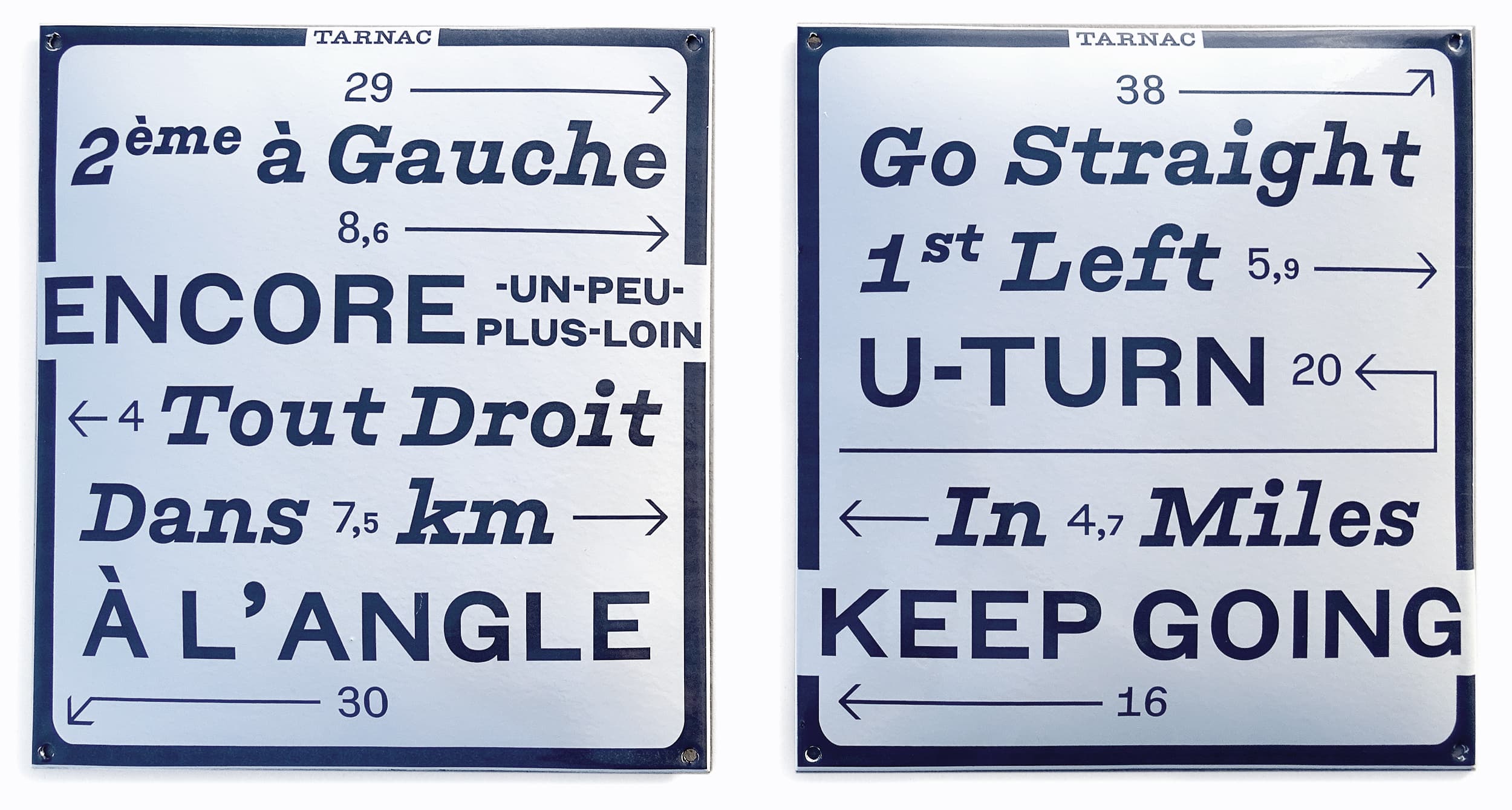
About Tarnac
The roots of Tarnac can be found in a variety of 20th century French Egyptian models, both formal and informal–as featured in posters, newspaper headlines, and the classic French road signs plaques Michelin.
Tarnac Slab
Tarnac began as a revival of the Turlot foundry’s 1905 Égyptiennes Penchées Noires (Black Leaning Egyptian). After first encountering the specimen at the Printing Museum in Lyon, designer Marc Rouault was taken by the unexpectedly modern feeling of this style, especially as compared to the rest of Turlot’s Égyptiennes 2e série, which contains a Regular, a Large, and a Grasses (fat) in addition to the Penchées Noires, which, unsurprisingly, has no Roman equivalent.
This particularly French style of slanted Égyptienne, with its wonky proportions and flat-interior bowl shapes, is an intractable aesthetic element of French culture and even the French countryside itself–featured in many of the Panneaux Michelin road signs. This historic signage, with its hand-painted loose fidelity to the Turlot model, served as a spiritual beacon for the design.
Shortly after drawing his first draft of Tarnac, roughly adhering to the specifications and feel of Turlot’s original, Marc drew his own Light variant. It became evident over the following weeks and months that the question of contrast was essential. When the thick stems were stripped back almost to the hairline value in the new Light weight, something interesting was happening. Absent the contrast of the thin hairlines with the thick stems, the swelling of form inherent to the signature flat-interior-round-exterior curves became the new threshold of visual contrast. This slight difference in weight between the stems and the bowls in the original version, which made for an extremely subtle effect within the larger system of hairlines and thicks, was now brought to the forefront and the contrast between the bowls and the rest of the forms became the primary tension of the bouma. Thrilled with the effect of this new style, Marc doubled back and drew a new, low-contrast version of the original Bold to match.
Tarnac Sans
The development of a Sans serif version became evident as soon as the Slab's contrast disappeared. Slicing off the slabs revealed beginnings for a viable sans serif family. With a few adjustments, especially for the more crowded characters (the diagonal ones) you get a refreshingly wonky monolinear sans, true to the origin of the genre. Telltale formulations like the excessively wide “T” and oversized tidles indicate its origin, and harken back to the methodology employed for the very first san-serif typeface cast by the Caslon foundry in London, 1816.
With a solid basis for both a Slab and Sans, Rouault took the italics as an opportunity to explore an aspect that he had long noticed in painted signs and shop windows of his native country, where the letters are not really slanted, but rotated. Undoubtedly for technical reasons of hand work, it is easier to rotate a model than to skew it. This sensibility informed the imperfect approach to Tarnac’s italics.
Tarnac and Tarnac Sans have these inspirations in common, of hand painted letters, often informal, drawn from models but never really standardized. The Michelin panels for the Slab, the sign painting for the Sans. These sources have a warm naivety, which find a new home in the 21st century through the love and care of a faithful shepherd.